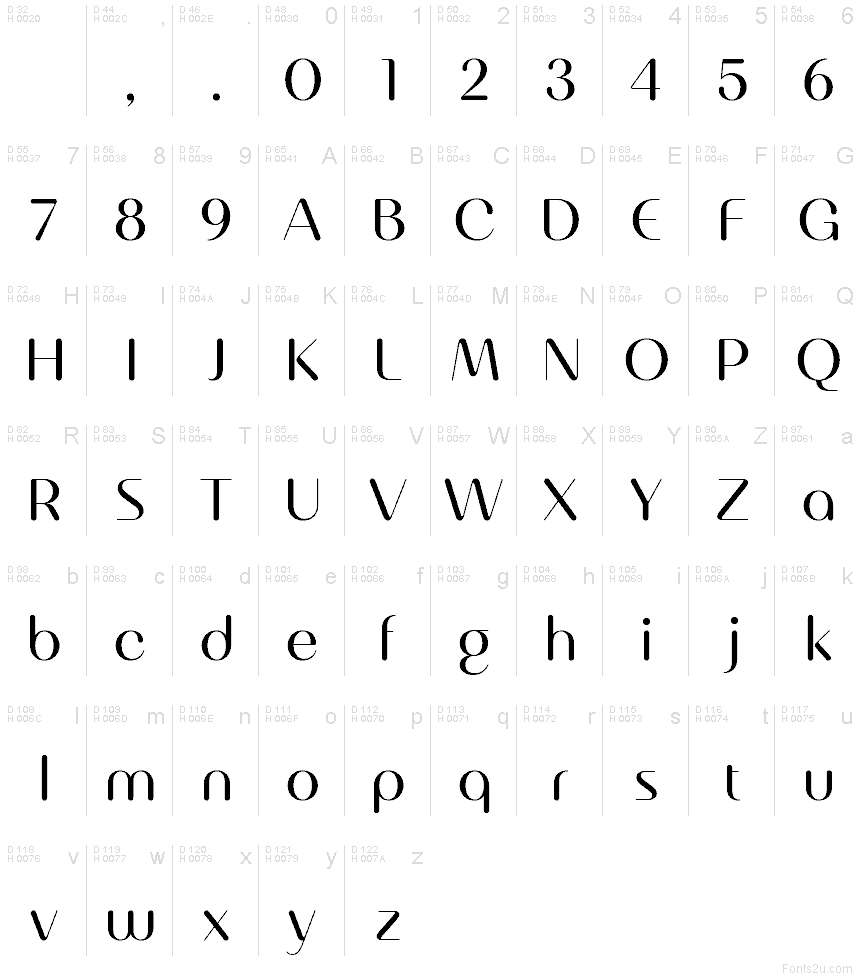
Nearo Rounded Regular
Nearo Rounded font by Digitype Studio is a free rounded sans serif typeface that solves a familiar tension: you want warmth without losing polish. Its glossy curves, softened corners, and slender joins read friendly up close, yet the tidy rhythm and generous breathing room keep it crisp at brand scale. Headlines feel smooth and approachable, but there’s a refined glide to the forms that steers clear of “cute.”
Using Nearo Rounded, you get clean, confident typography for wellness branding, coffee packaging, UI headers, tech landing pages, signage, and social promos. The even spacing makes short phrases snap, while longer lines stay calm and readable. This free font works beautifully when you set titles larger and pair body copy with a neutral grotesque or humanist sans for contrast.